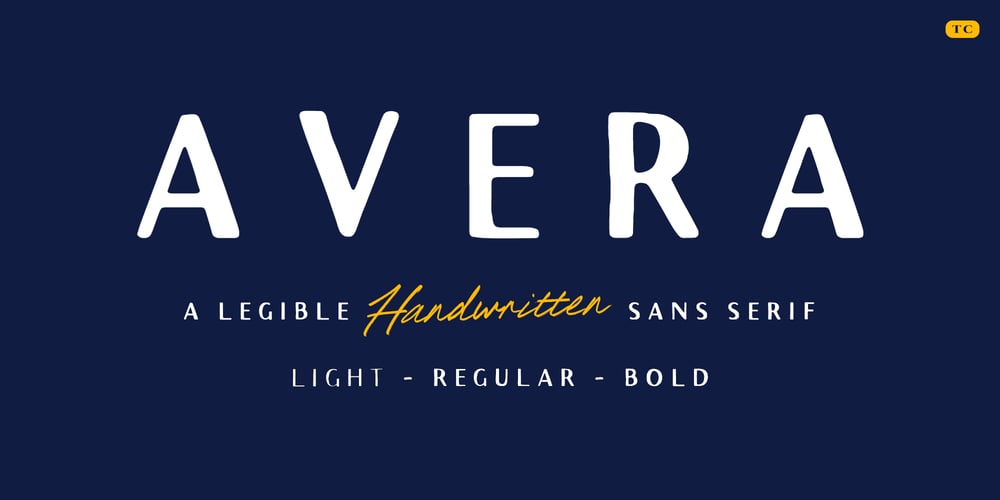
TC Avera Sans Font Family was designed by Tom Chalky and published by Tom Chalky. TC Avera Sans contains 3 styles and family package options. Introducing Avera Sans, a font family that seamlessly blends handcrafted charm with practical functionality. This typeface offers a trio of weights—light, regular, and bold—that cater to a myriad of design needs. Designed to be versatile enough for posters, logos, apparel, and beyond. Each weight is honed to ensure clarity and readability, whether scaled up for impact or sized down for subtlety. Avera Sans excels in display settings, capturing attention with its playful yet professional character.Embrace Avera Sans for your next project, and let its friendly sophistication elevate your design narrative.